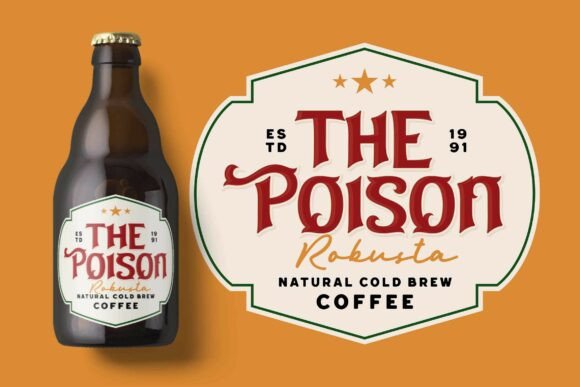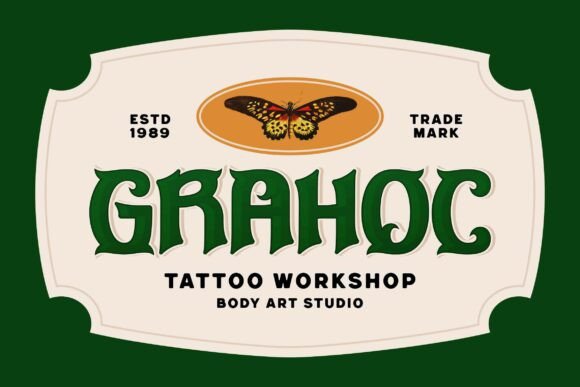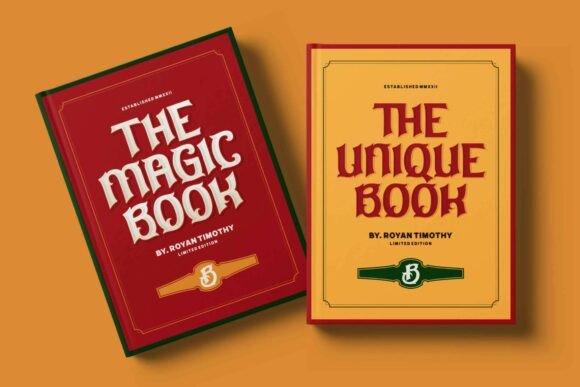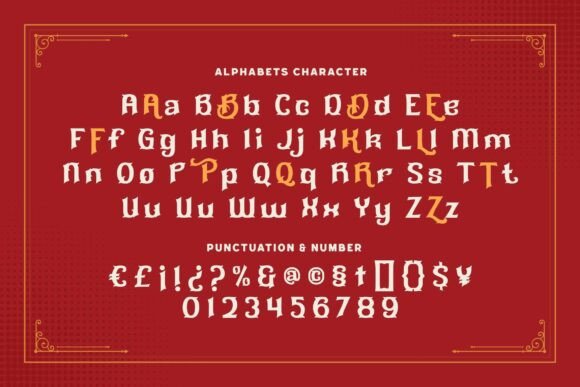
Introducing Boniar Font: A Vintage Display Typeface with Timeless Charm
In the world of typography, few fonts manage to capture the essence of vintage charm while exuding modern sophistication. Boniar font, a stunning vintage display typeface, achieves just that. This beautifully crafted font seamlessly blends old-world elegance with bold, contemporary flair, making it an ideal choice for designers and crafters seeking to add a touch of classic style to their projects.
The Distinctive Features of Boniar Font
Boniar font boasts an array of distinctive features that set it apart from other typefaces. Its sculpted letterforms are characterized by flared serifs, sharp spurs, and subtle ink-trap bevels, which collectively create a carved, sign-painted appearance. This unique aesthetic lends itself perfectly to a variety of applications, from beer labels and cafe menus to heritage branding and packaging.
Design Elements and Versatility
One of the standout aspects of Boniar font is its generous contrast, tight counters, and optional shadow/inline styling. These design elements combine to give the font a poster-ready depth that is both visually striking and highly versatile. The steady proportions of the lettering ensure that it remains crisp and clear, making it suitable for use in logos, headlines, and editorial titles.
Applications and Pairing Suggestions
Boniar font’s classic display style makes it an excellent choice for a wide range of projects. Some potential applications include:
- Beer labels and brewery branding
- Cafe and restaurant menus
- Heritage branding and packaging
- Badges and emblems
- Editorial titles and headings
To balance its ornate personality, Boniar font can be paired with a refined serif or a clean sans serif. This allows designers to create visually appealing and harmonious typographic combinations that showcase the font’s unique characteristics.
Technical Details and Accessibility
Why Choose Boniar Font?
Boniar font is more than just a typeface – it’s a statement. When you want to convey tradition, drama, and readability in one confident design, Boniar is the perfect choice. Its unique blend of vintage charm and modern sophistication makes it an excellent addition to any designer’s toolkit.
| Font Name | Boniar Font |
| Author | imoodev |
In conclusion, Boniar font is a versatile and visually stunning vintage display typeface that offers a wealth of creative possibilities. Its distinctive features, versatility, and technical accessibility make it an ideal choice for designers and crafters seeking to add a touch of classic elegance to their projects. Whether you’re working on branding, packaging, or editorial design, Boniar font is sure to make a lasting impression.